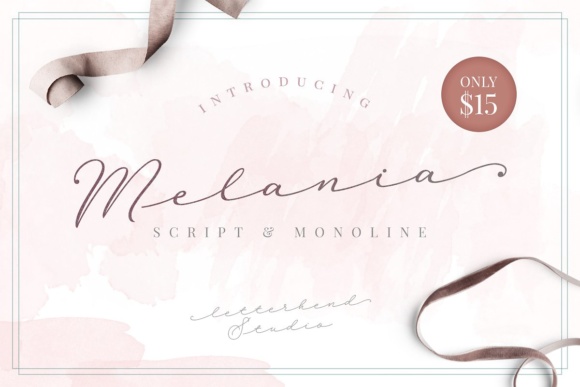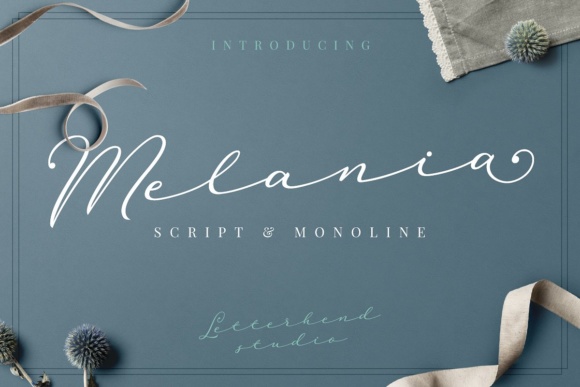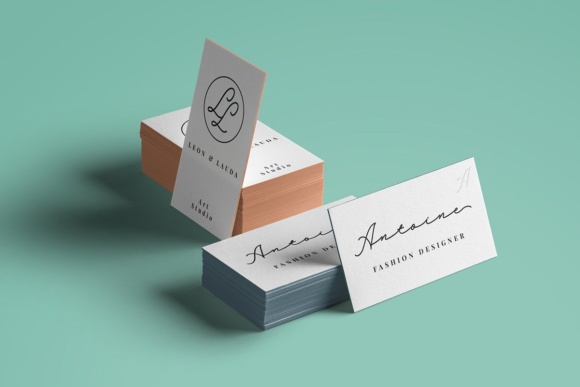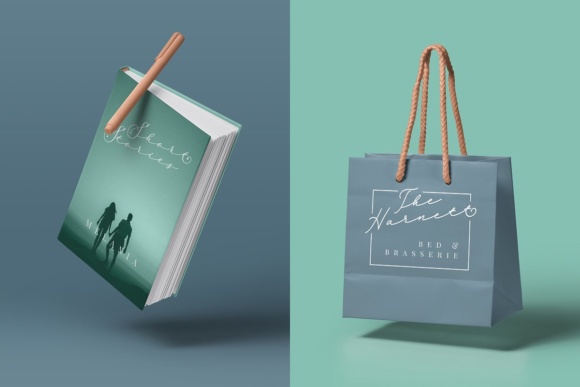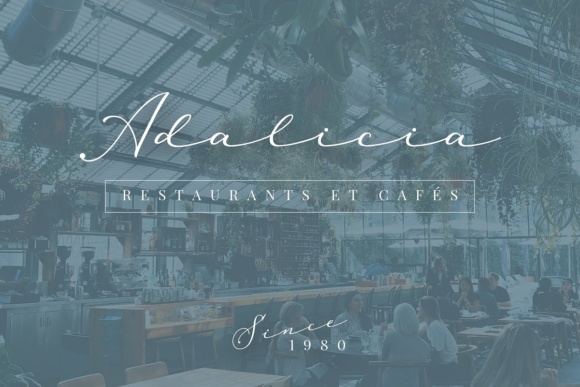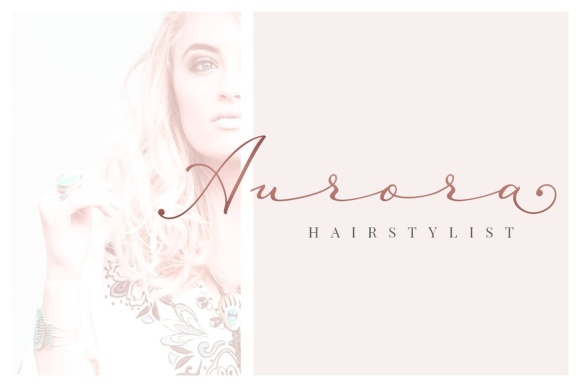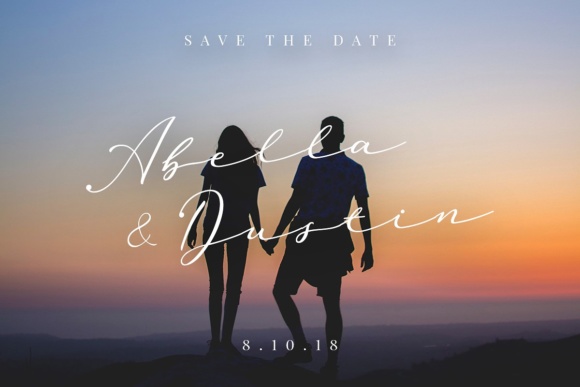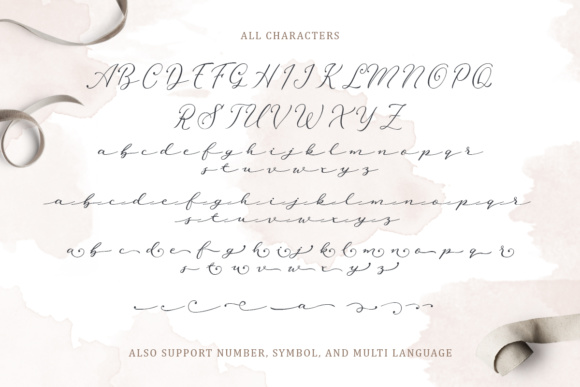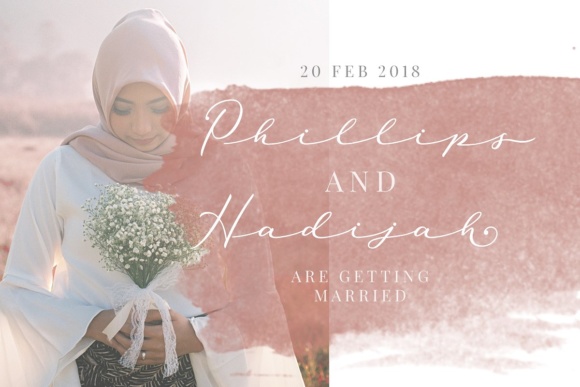
Melania Script Font
About Melania Script Font
A script font that is created by natural hand writing and gives you the feminine touch that you’ve been looking for. The irregular spacing brings a personal & unique feeling which is very suitable for signatures, wedding invitations, headlines, quotes, etc.